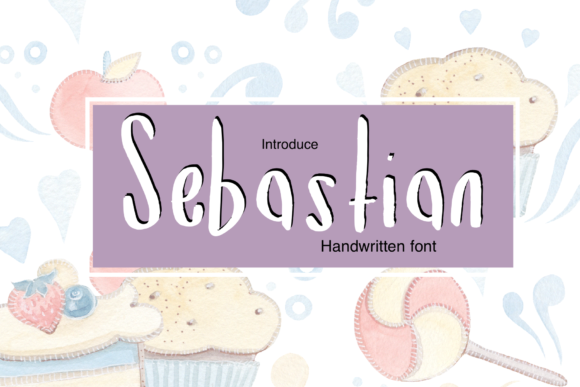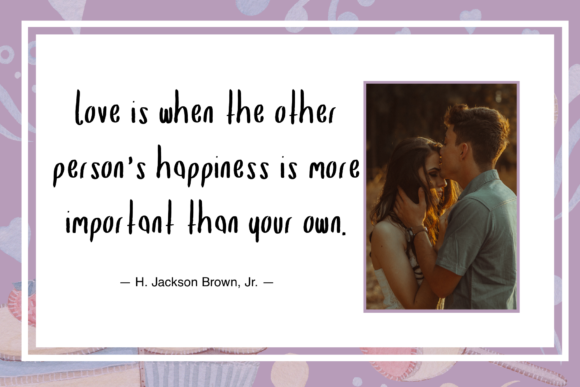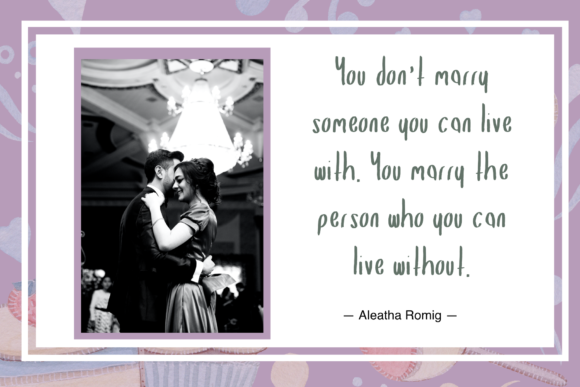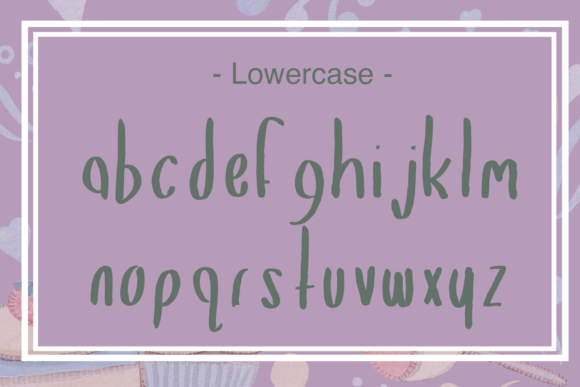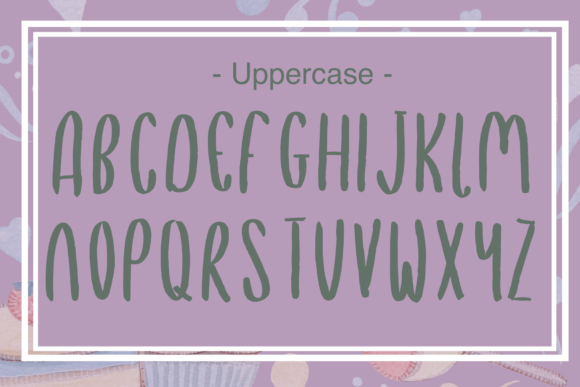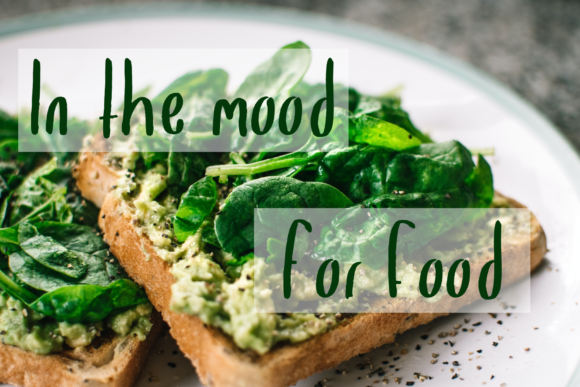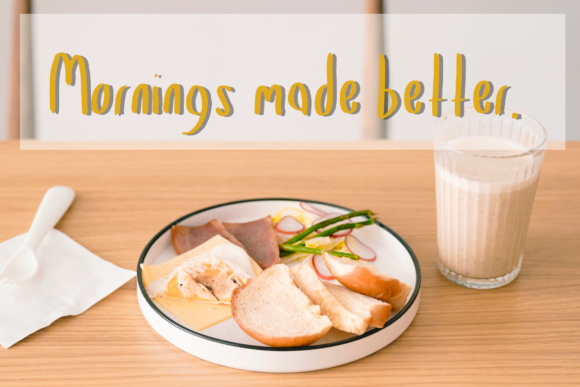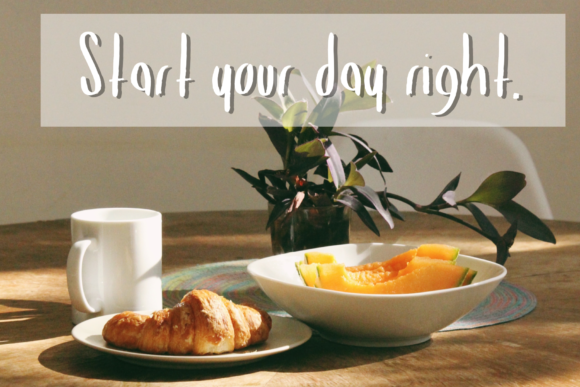
About Sebastian Font
Sebastian is a sweet and friendly handwritten font. Its natural and unique style makes it incredibly fitting to a large pool of designs. The only limit is your imagination!